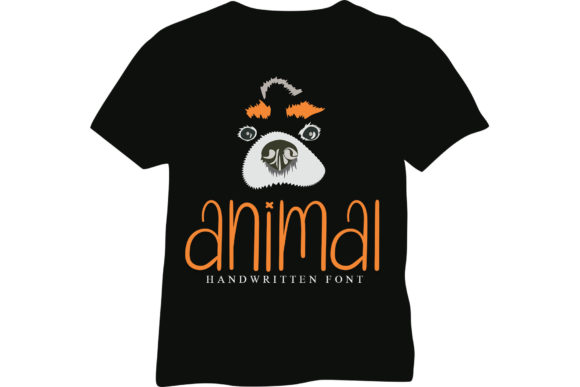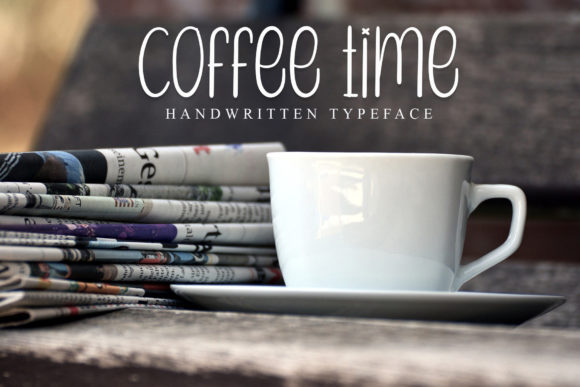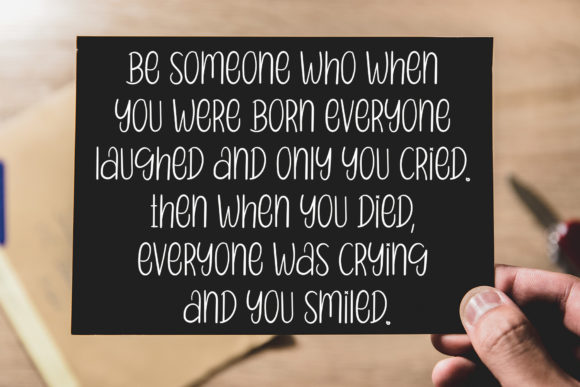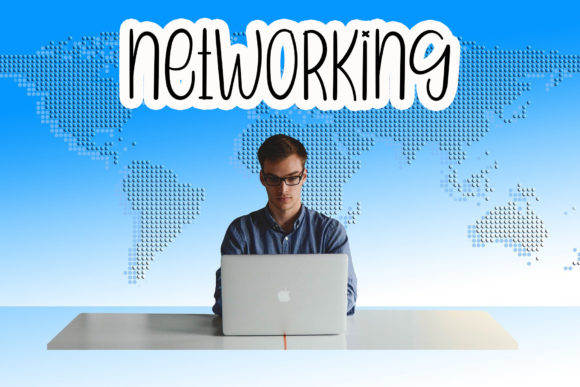
Baby Love Font
About Baby Love Font
Baby Love is a simple, thin, and cute handwritten font that offers versatility for various design purposes. Whether you’re creating logos, headings, t-shirts, letterheads, signage, labels, news articles, posters, badges, or any other design project, this font is a great choice.
The simplicity of Baby Love adds a clean and minimalistic touch to your designs. Its thin strokes and handwritten style create a charming and playful look, making it suitable for a wide range of applications.
With its versatility, Baby Love can adapt to different design contexts and themes. Whether you’re aiming for a cute and lighthearted vibe or a more elegant and sophisticated aesthetic, this font can be adjusted to match your desired tone.
From branding materials to promotional items, Baby Love brings a sense of sweetness and character to your designs. Its simplicity ensures easy legibility, making it effective in delivering your message.
Utilize Baby Love across various platforms and media, both digital and print, to create a cohesive and engaging visual experience. Its versatility and adaptability make it a valuable addition to your design toolkit.
So, let Baby Love be your choice for adding a simple, thin, and cute touch to your designs. Explore its potential and discover how it enhances the visual appeal of your projects.